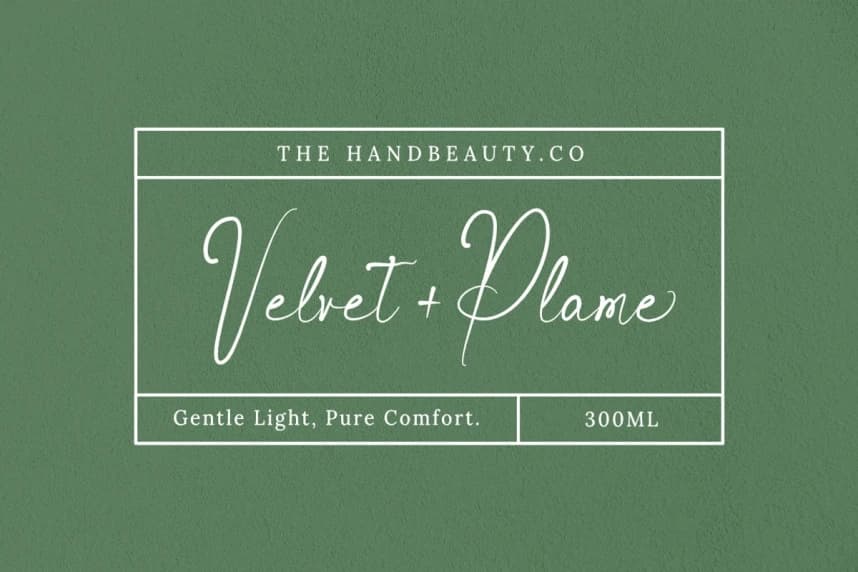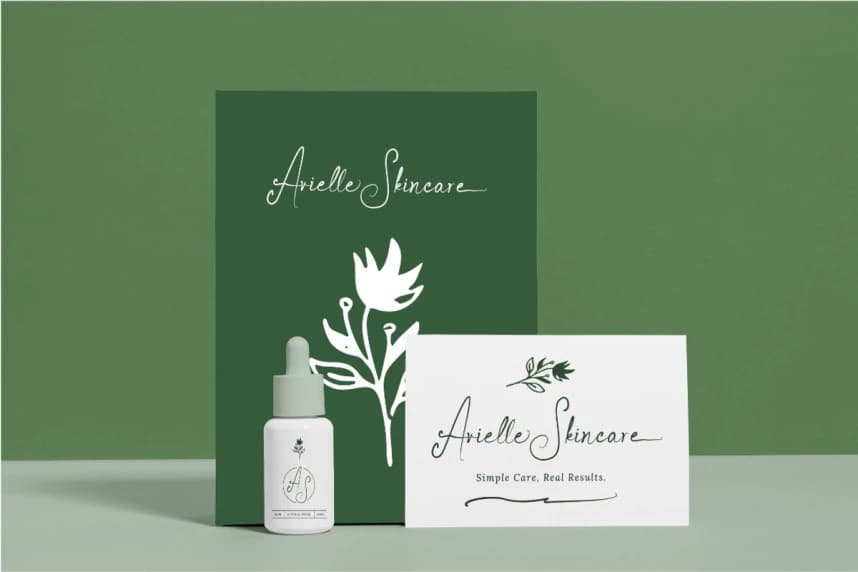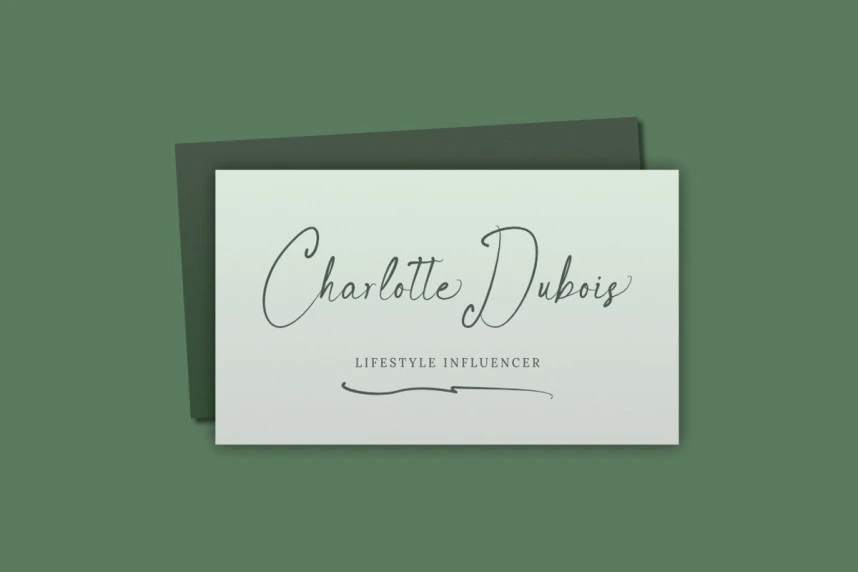
Beverly Sage Font
Beverly Sage Font, a natural, whimsical handwritten font crafted from authentic, real-life hand strokes. Each character captures the imperfect beauty of genuine pen-on-paper movement, making it the perfect choice for projects that require a personal, approachable, and playful aesthetic.